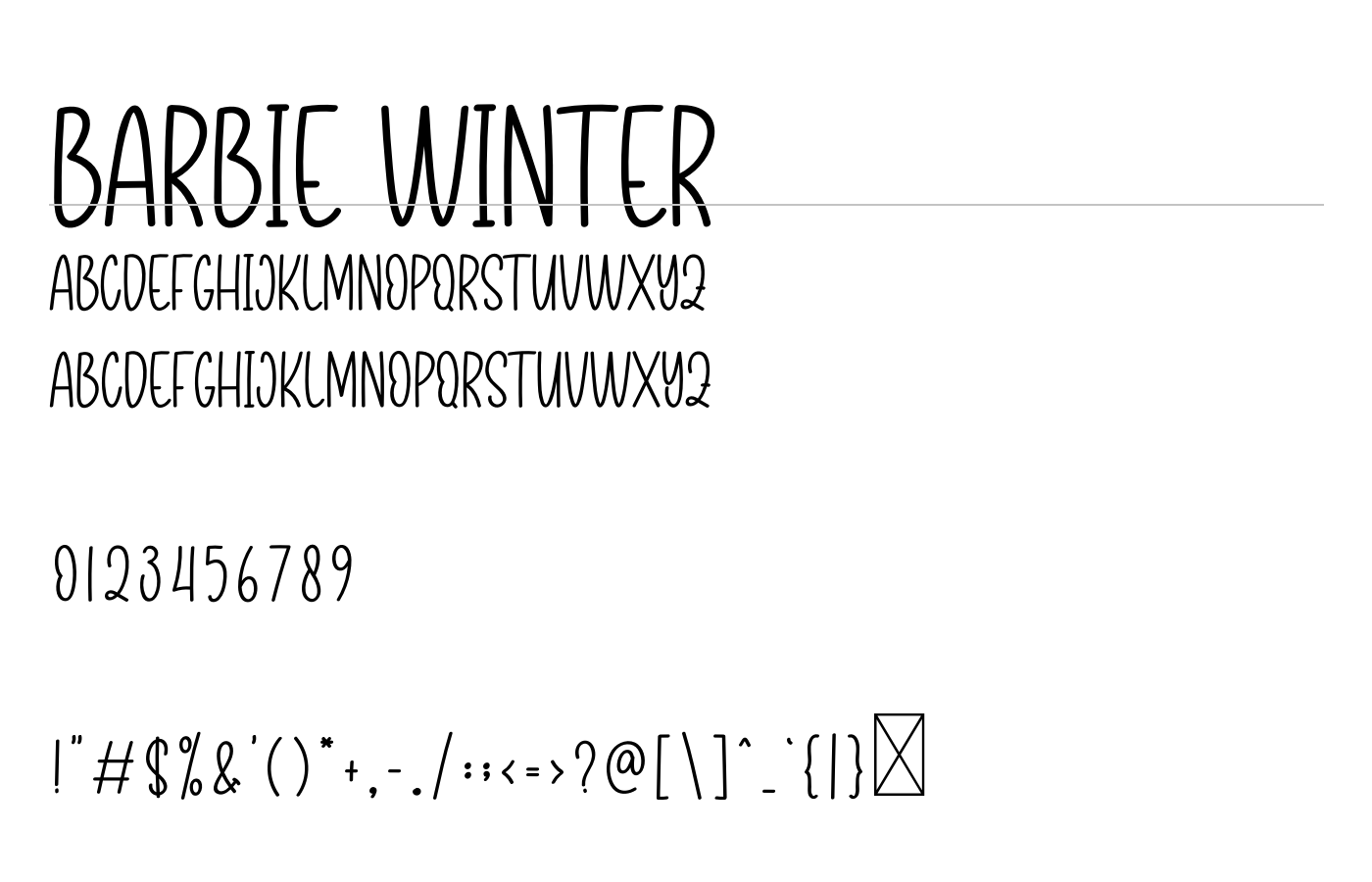
Barbie Winter is a playful, tall, and narrow sans serif font with a hand-drawn feel, characterized by its thin, consistent strokes and slightly irregular letter shapes that add a charming, casual personality. Its light weight and airy spacing make it perfect for fun, youthful designs like children’s books, invitations, or creative branding where a friendly and approachable style is desired. This font shines in headlines or decorative use, lending a whimsical and informal vibe without sacrificing legibility.
Barbie Winter Font